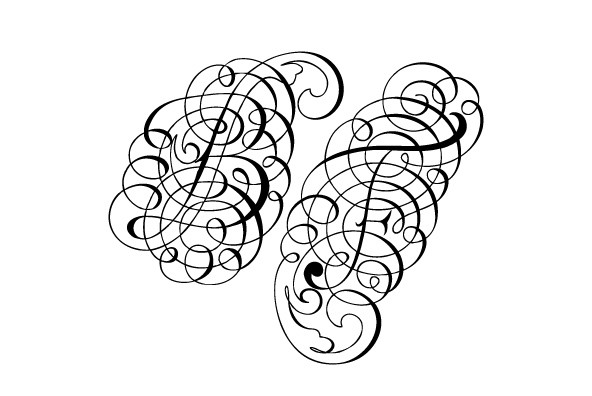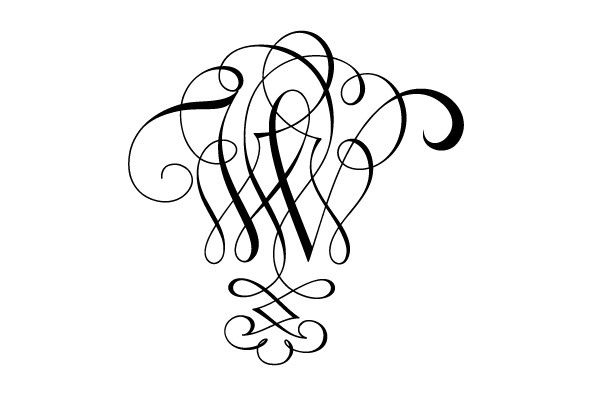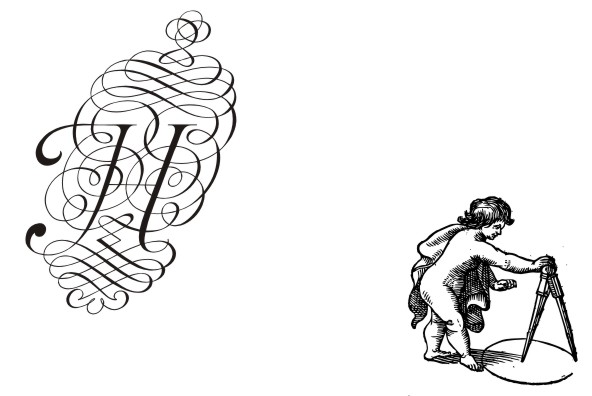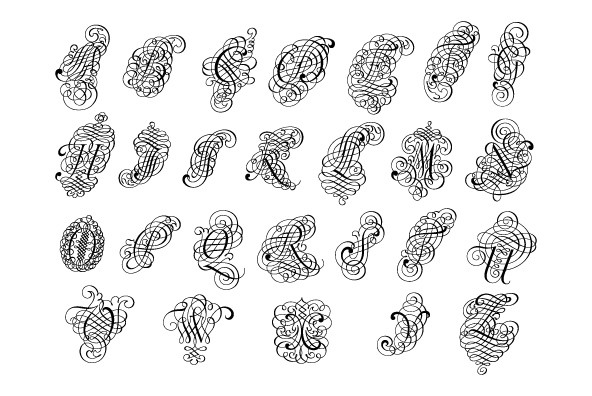
A decorative capitals type design from the work of Johann Georg Schwandner (1716-1791). An accurate historical revival and interpretation of Iza W, at Intellecta Design.
A decorative capitals type design from the work of Johann Georg Schwandner (1716-1791). An accurate historical revival and interpretation of Iza W, at Intellecta Design. State-of-art to use in headings, chapter initials from books, magazines and other publications. Also use in baroque and renaissance inspired layouts, or modern mixed proposals.